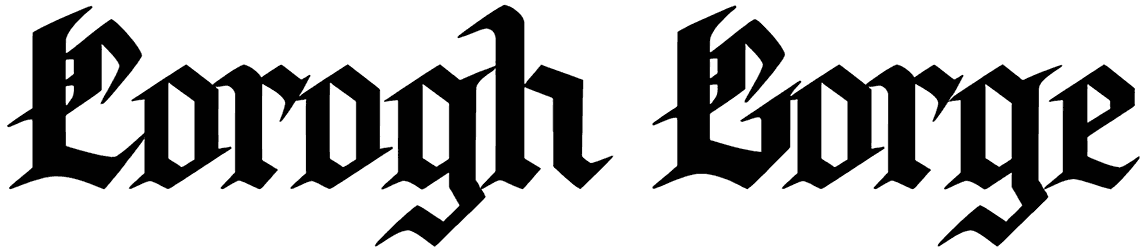
Corogh Gorge Font
Show your creativity and design skills to everyone by adding our new gothic font, Corogh Gorge, which is specially created to give your work an enjoyable vintage touch. It includes uppercase, lowercase, and numbers, but doesn’t support any punctuation.
This font can easily make your project stand out and seem professional. It will be a good choice for whiskey brands, trendy fashion apparel, book covers, classic movie posters, and even modern theme concepts.